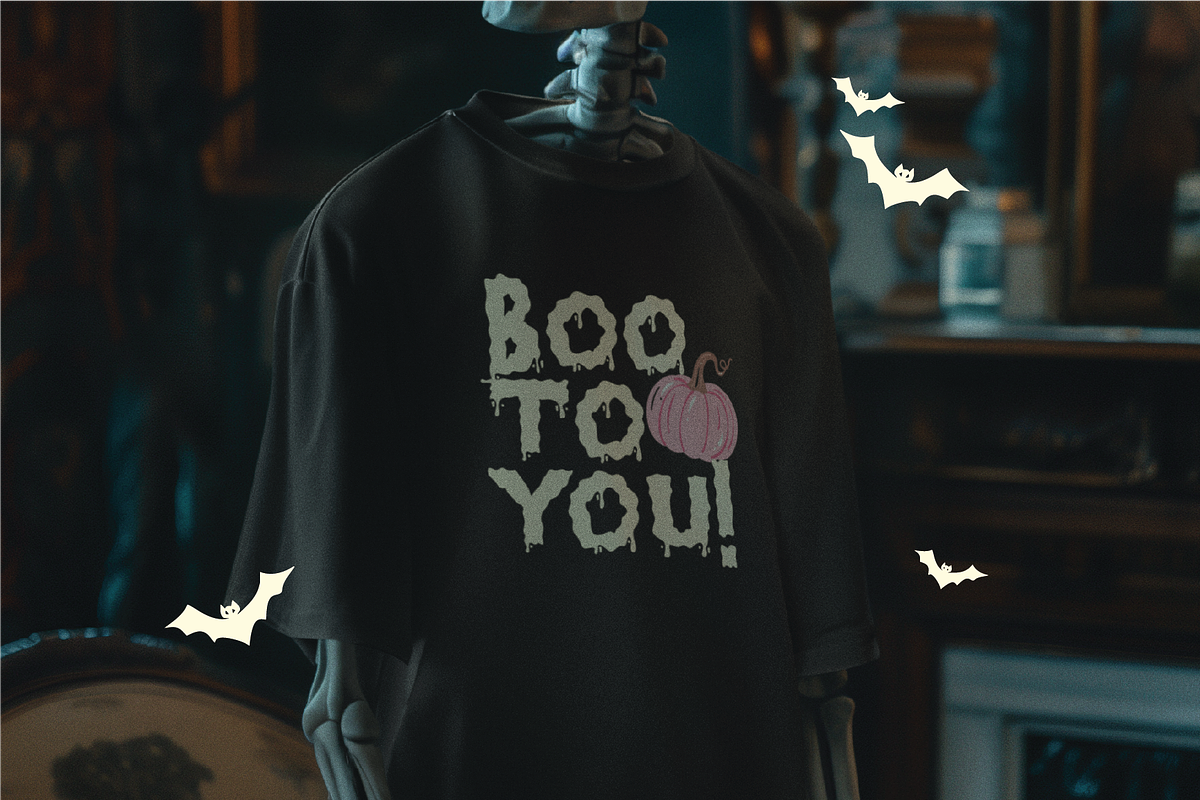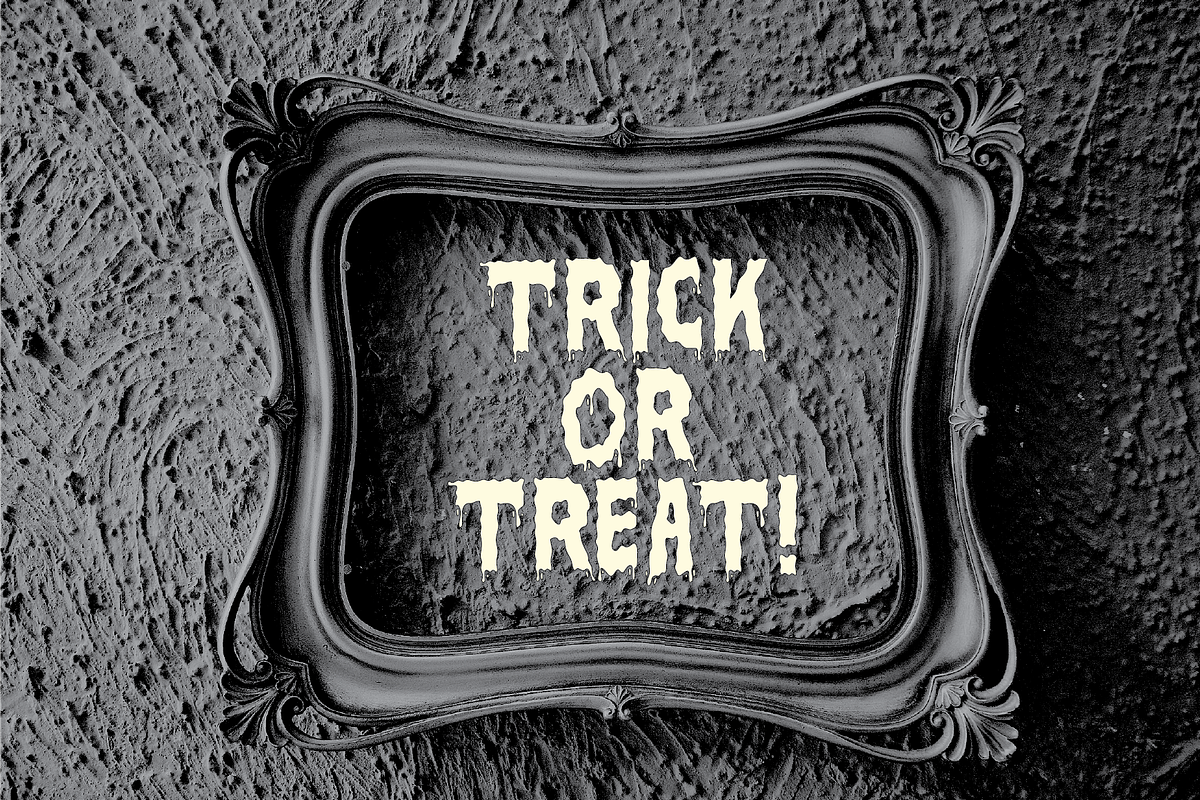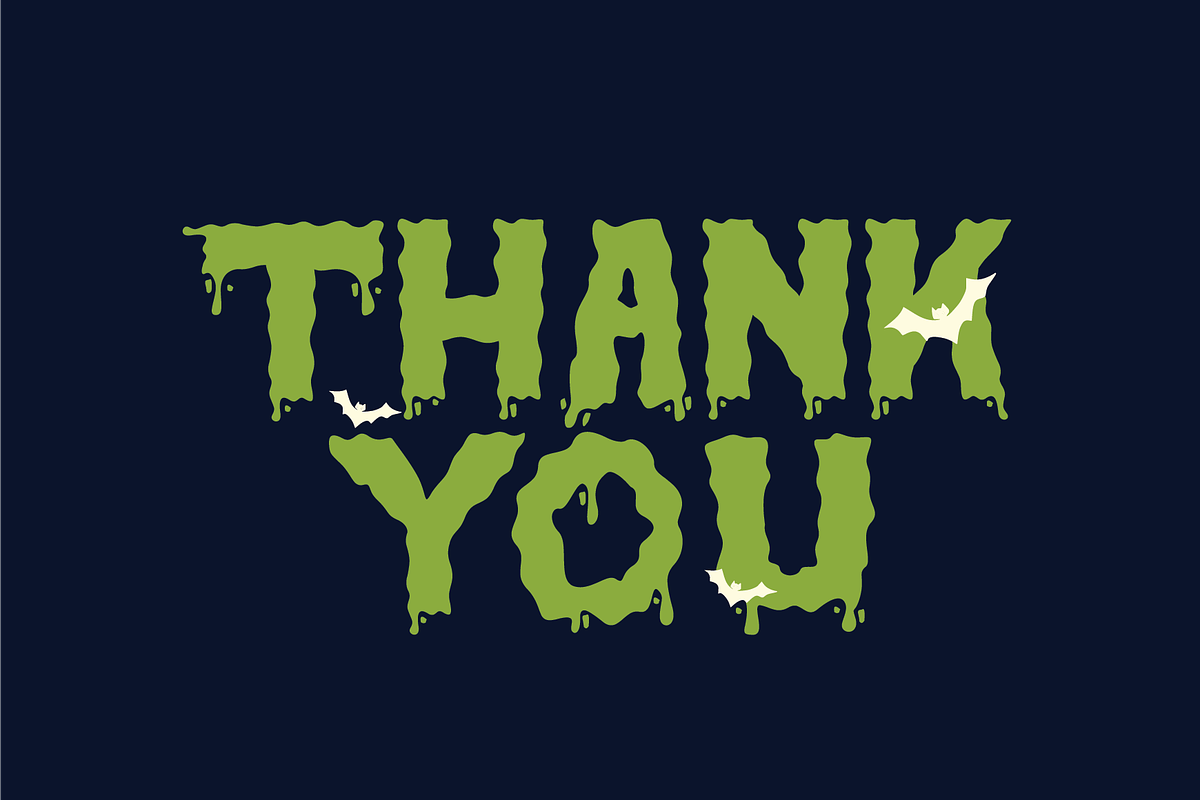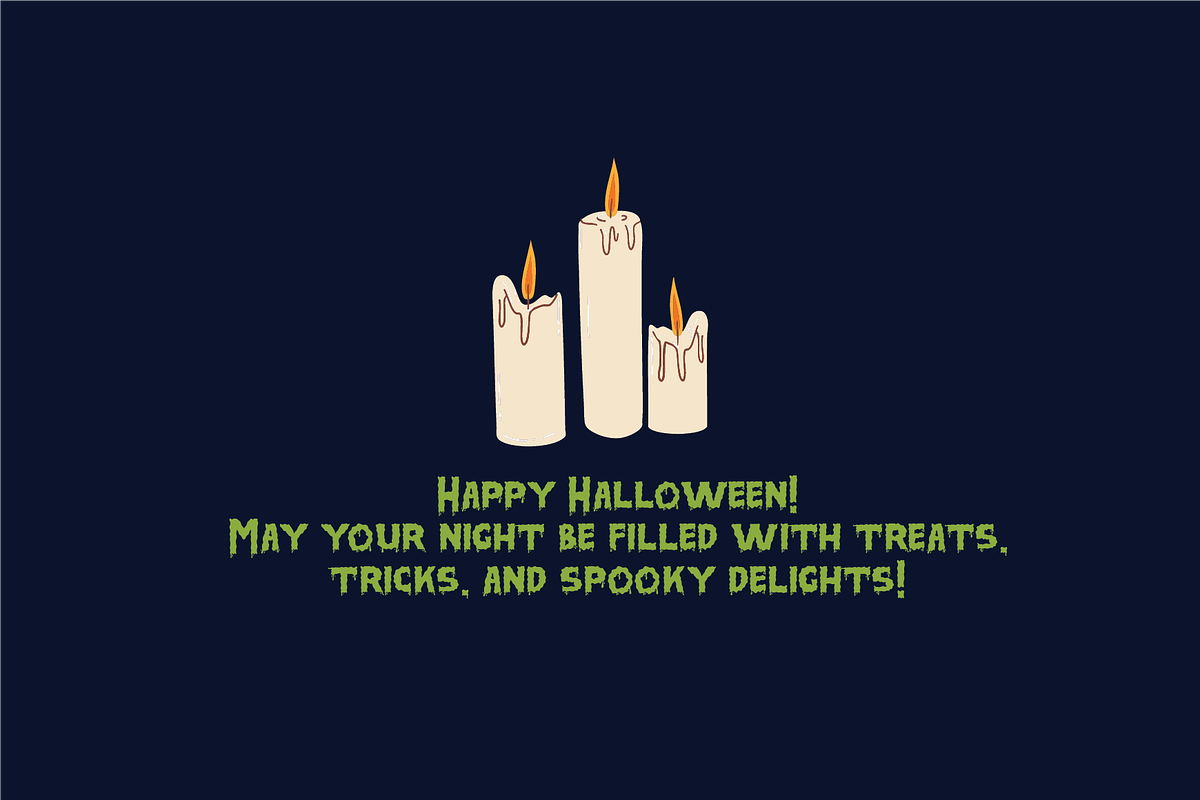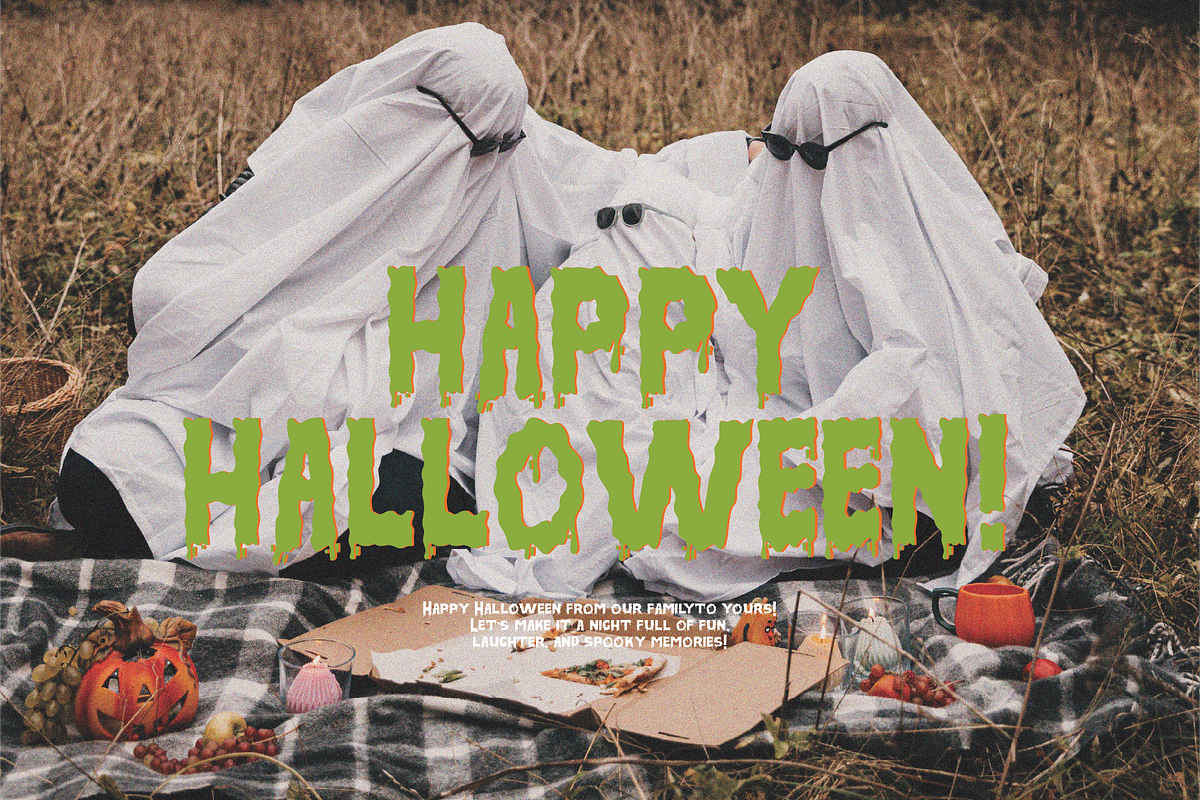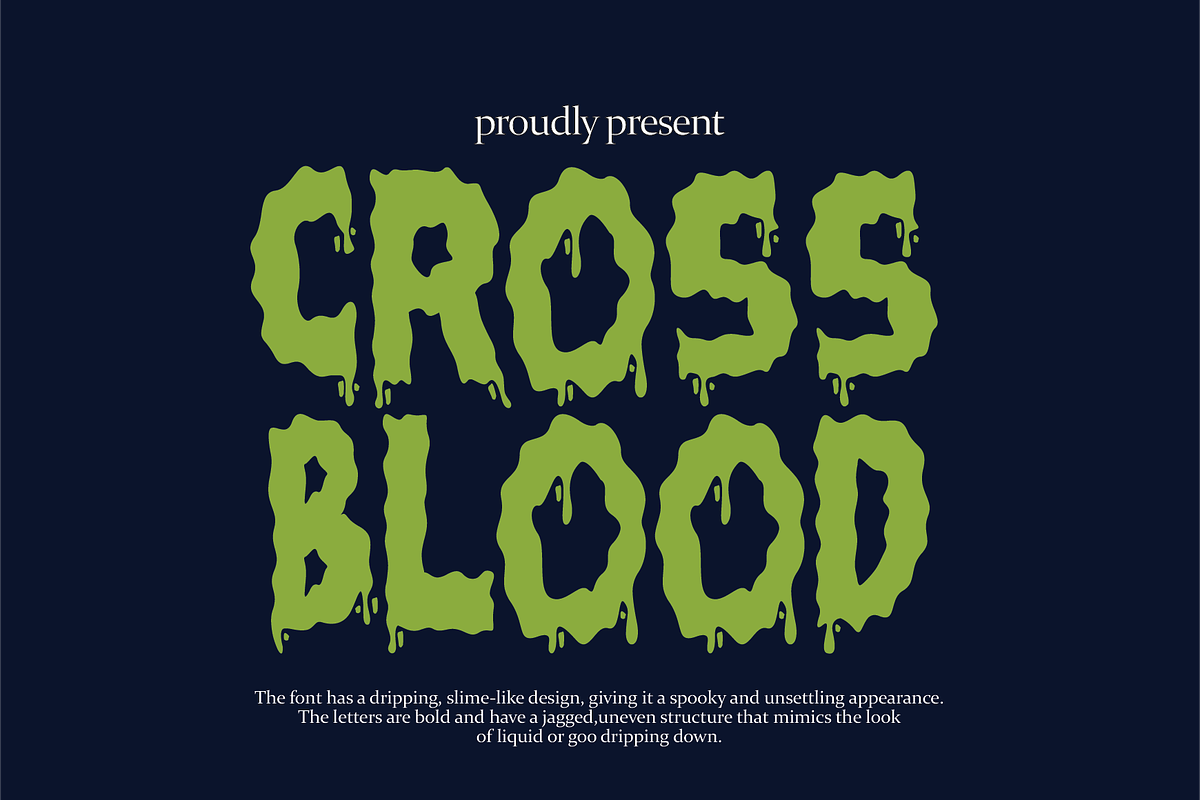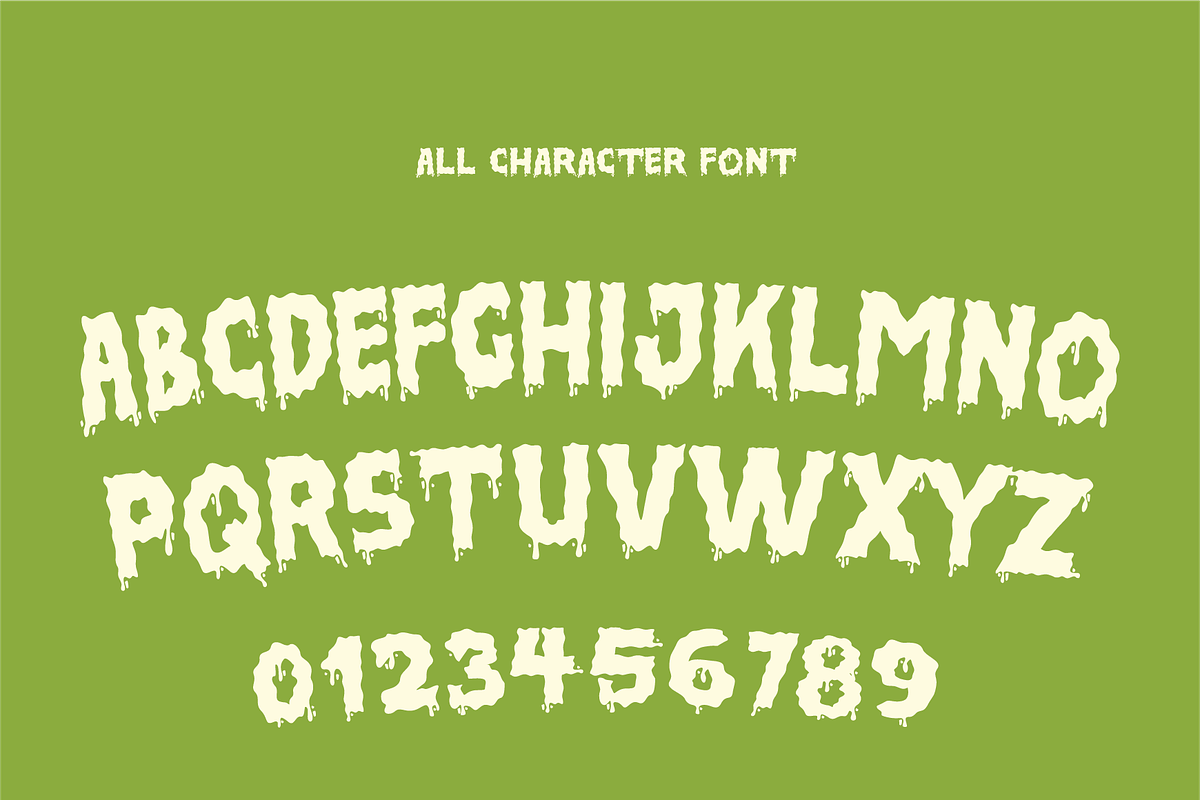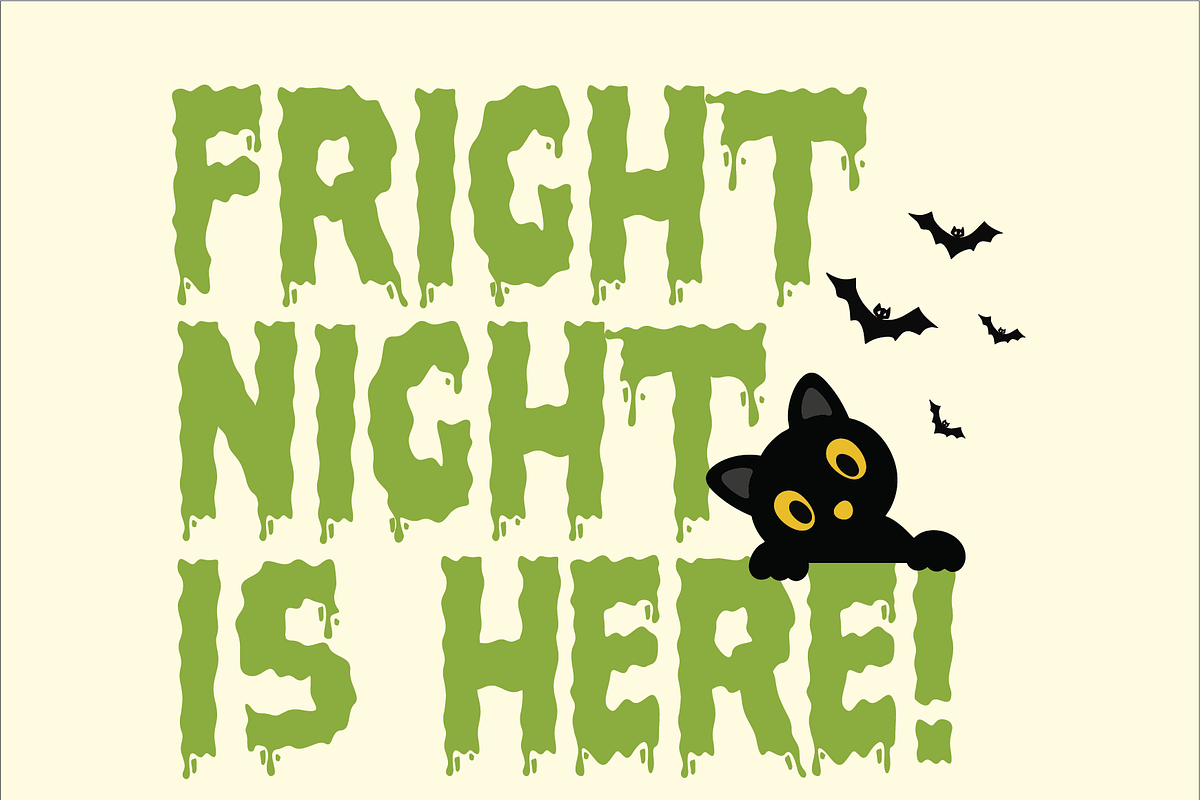
Cross Blood - Blood Font
Cross Blood The font in this image has a gooey, dripping appearance, resembling slime or blood that is slowly dripping off the letters. It features a bold, blocky style with irregular edges, adding a messy, horror-inspired effect.